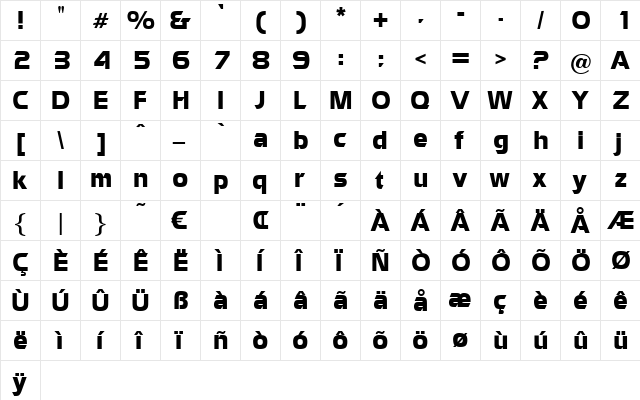
Eremitage Regular
Design Context for Eremitage Typeface
Eremitage offers clean, dependable letterforms without strong stylistic allegiance, making it a practical choice for designers who need flexibility.